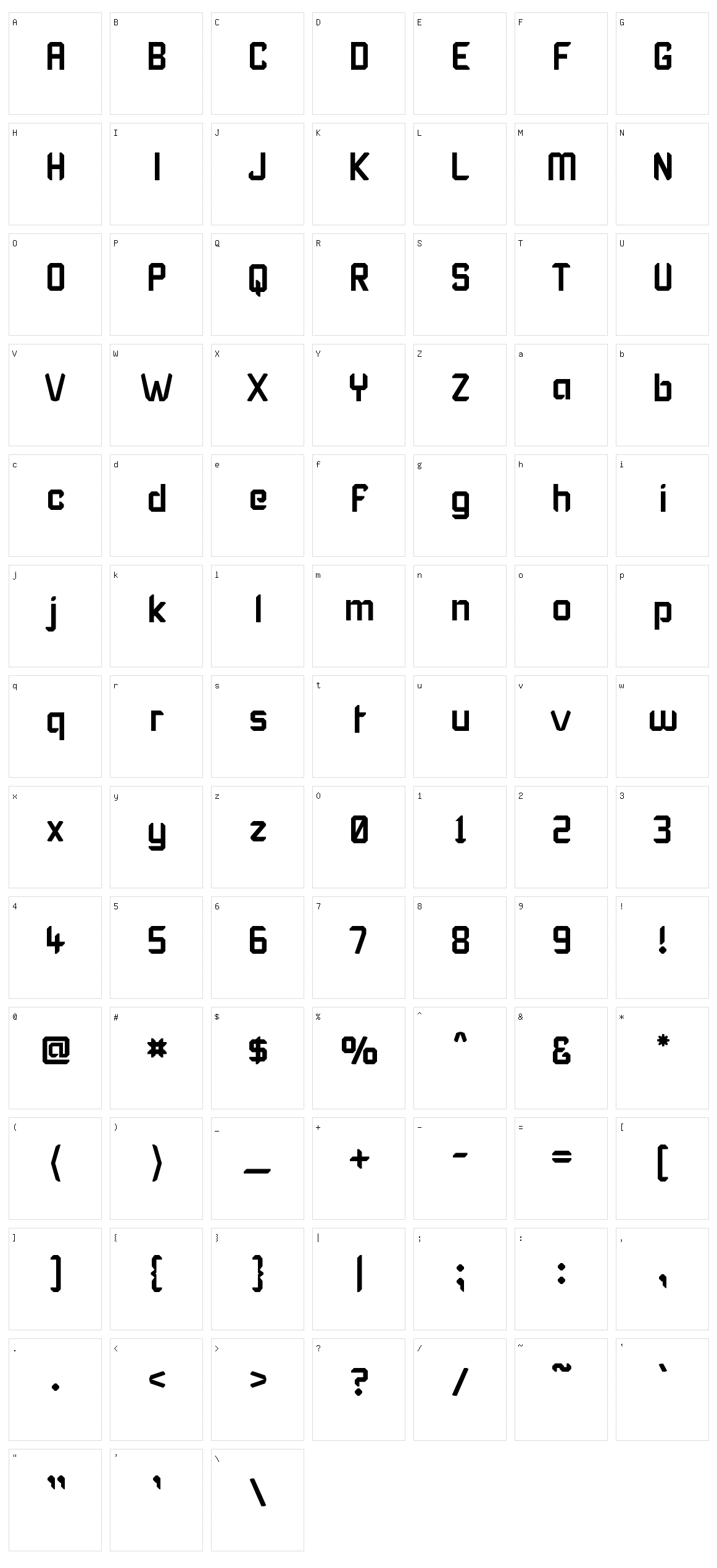
ka·ris·ma (k-rzm)
n., pl. ka·ris·ma·ta (-m-t.)
1 - A rare personal kwality attributed to leaders who arouse fervent popular devotion and enthusiasm.
2 - Personal magnetism or charm: a television news program famed for the karisma of its ankors.
3 - Personal karakter.
4 - Theology. An ekstraordinary power, such as the ability to perform mirakles, granted to a Kristian by the Holy Spirit.
[Greek kharisma, divine favour, from kharizesthai, to favour, from kharis, favour; see gher-2 in Indo-European Roots.]